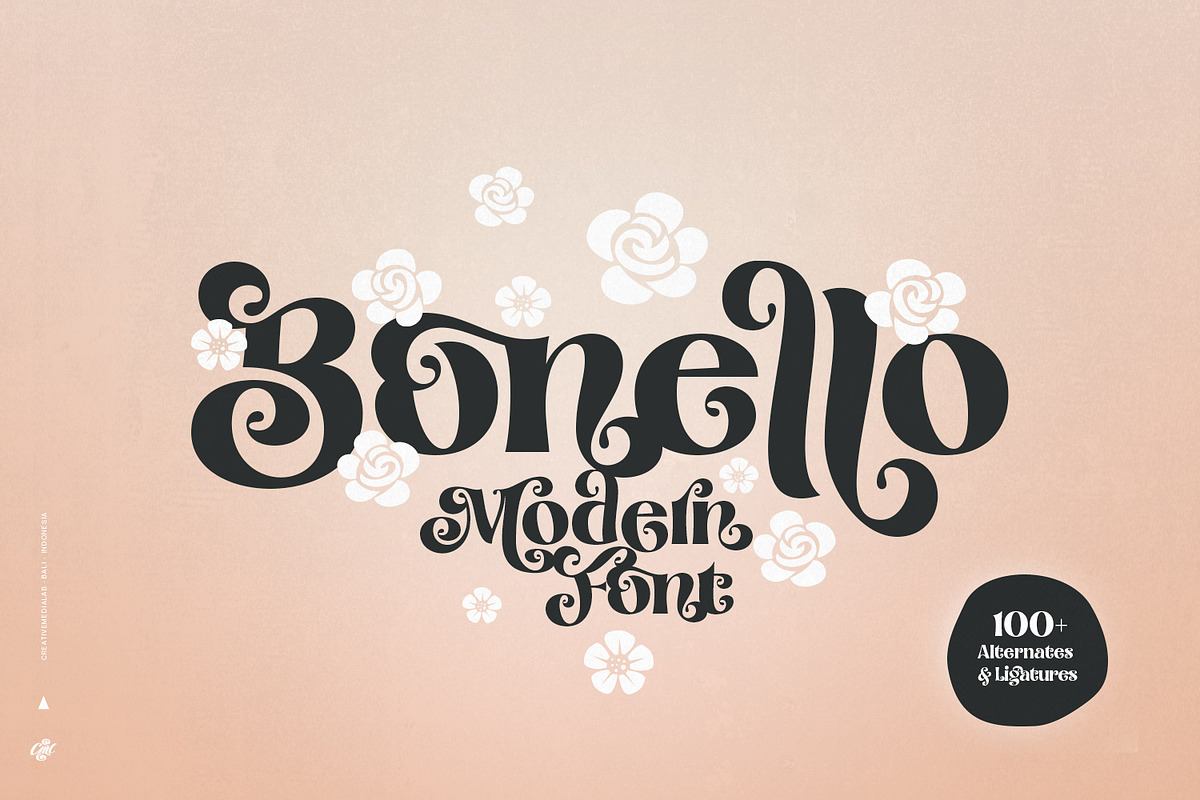
Bonello - Modern Display Font Free Download
Bonello - Modern Display Font Free Download is the perfect choice for designers looking to make a bold, modern statement. This sleek and stylish typeface blends contemporary aesthetics with versatile display power, making it ideal for branding, social media graphics, magazine layouts, packaging, and eye-catching headlines.
Bonello’s unique letterforms stand out with elegance and creativity, offering a fresh take on modern typography. Whether you’re working on a high-end fashion brand or a cutting-edge tech campaign, this font gives your design the professional and clean look it deserves. The dynamic structure and sharp lines make Bonello a top-tier choice for projects that demand attention.